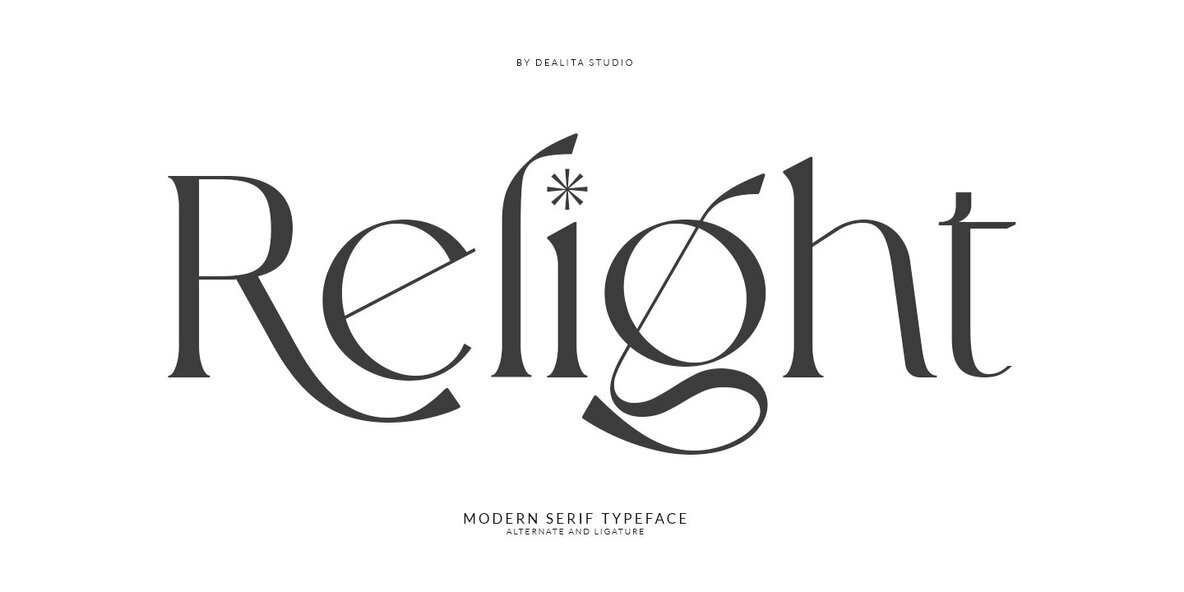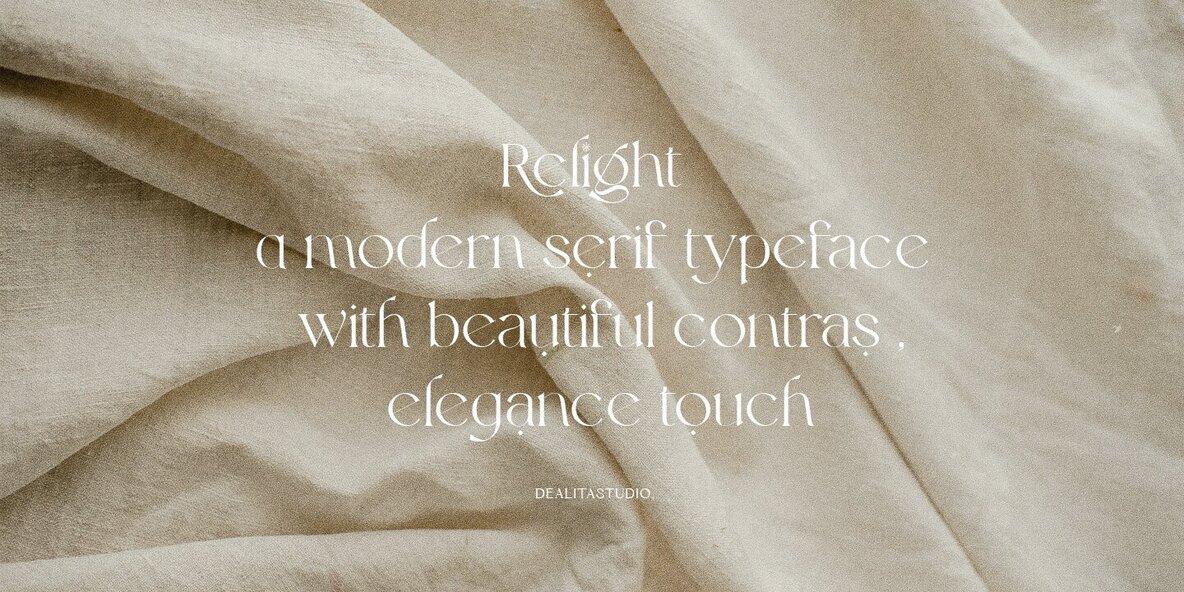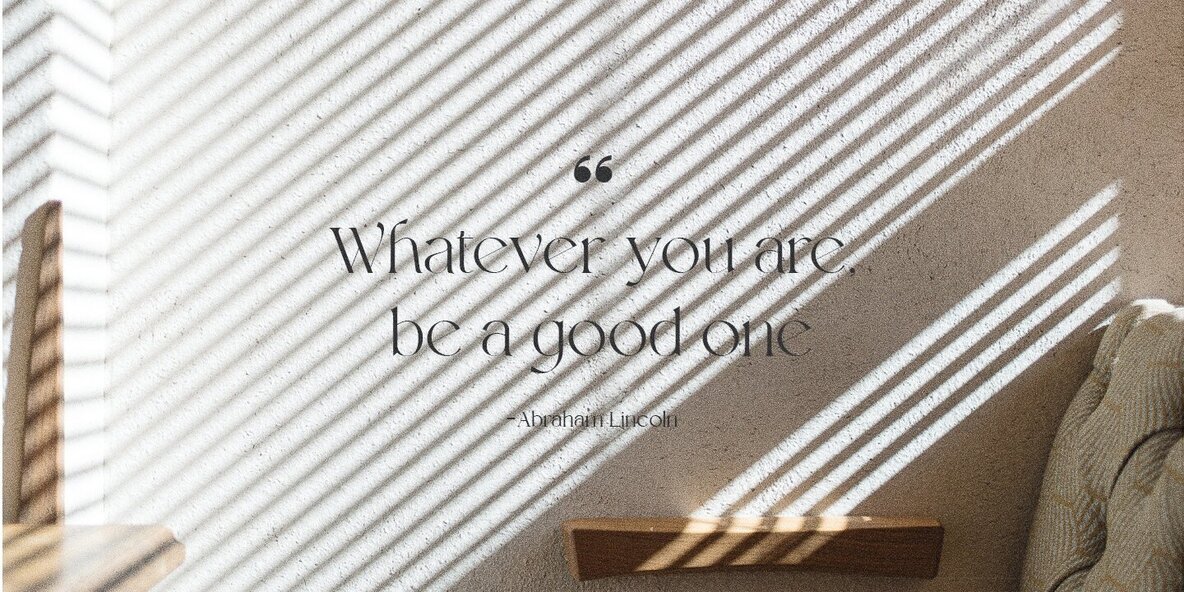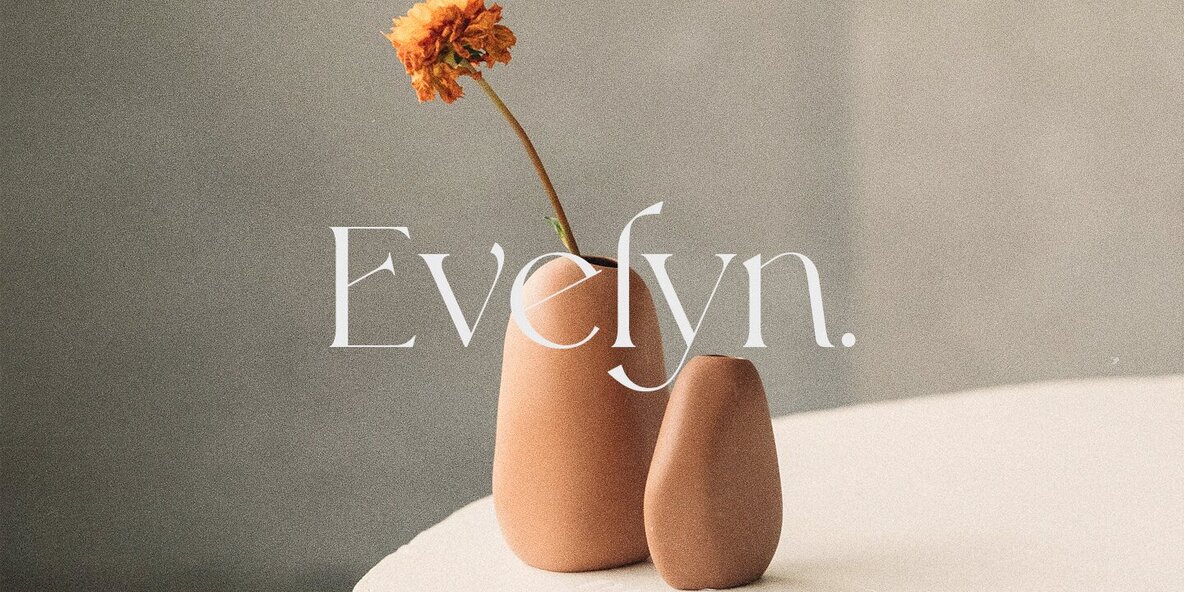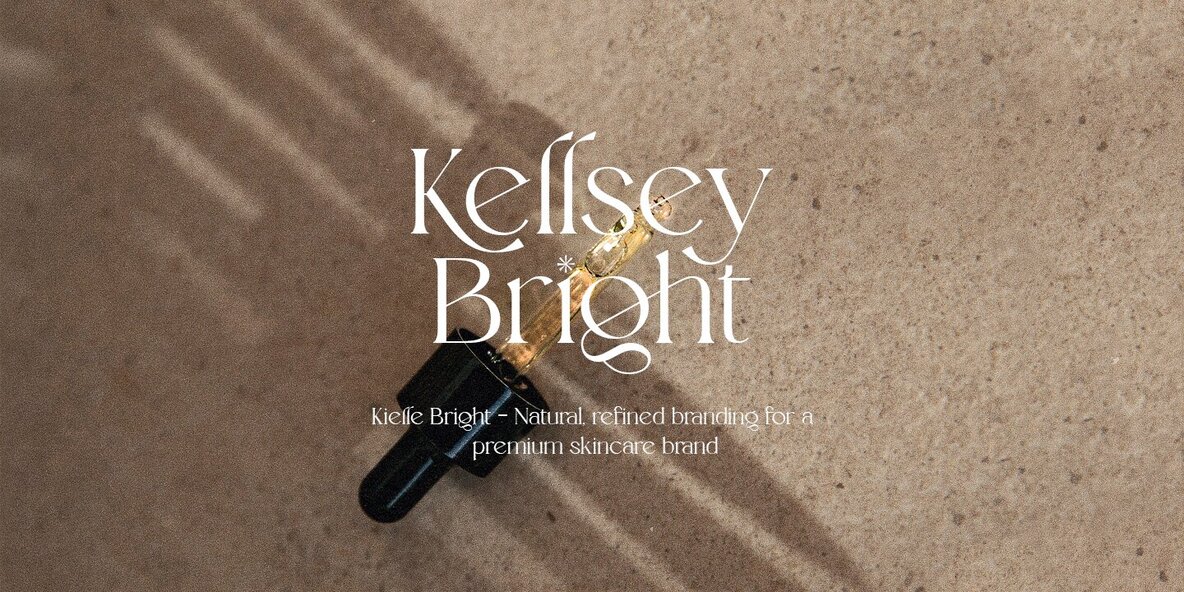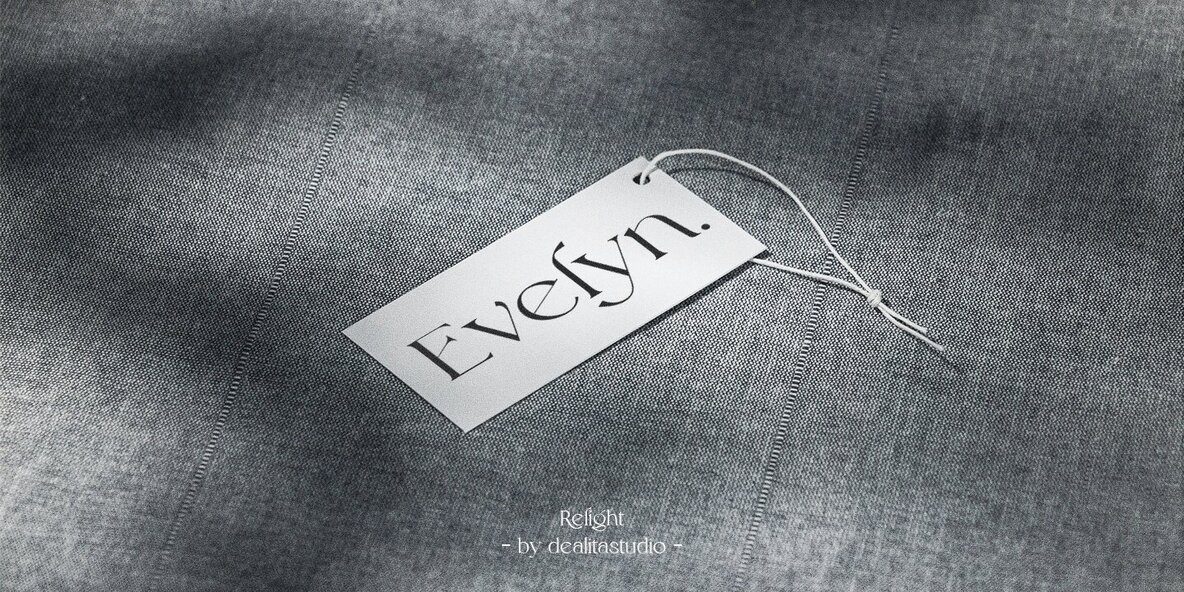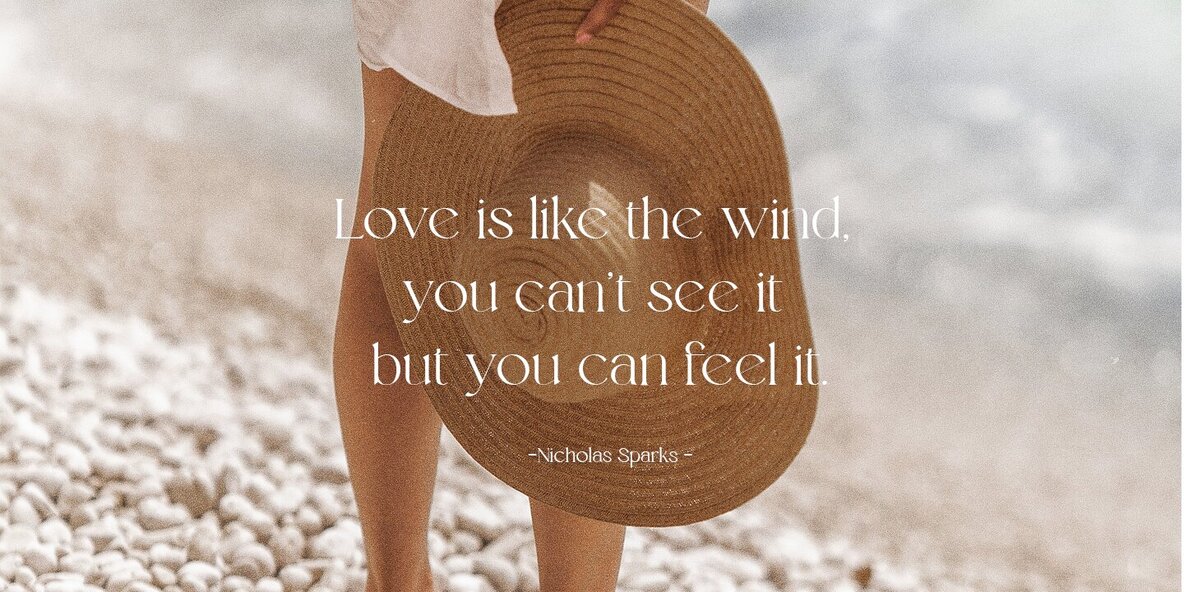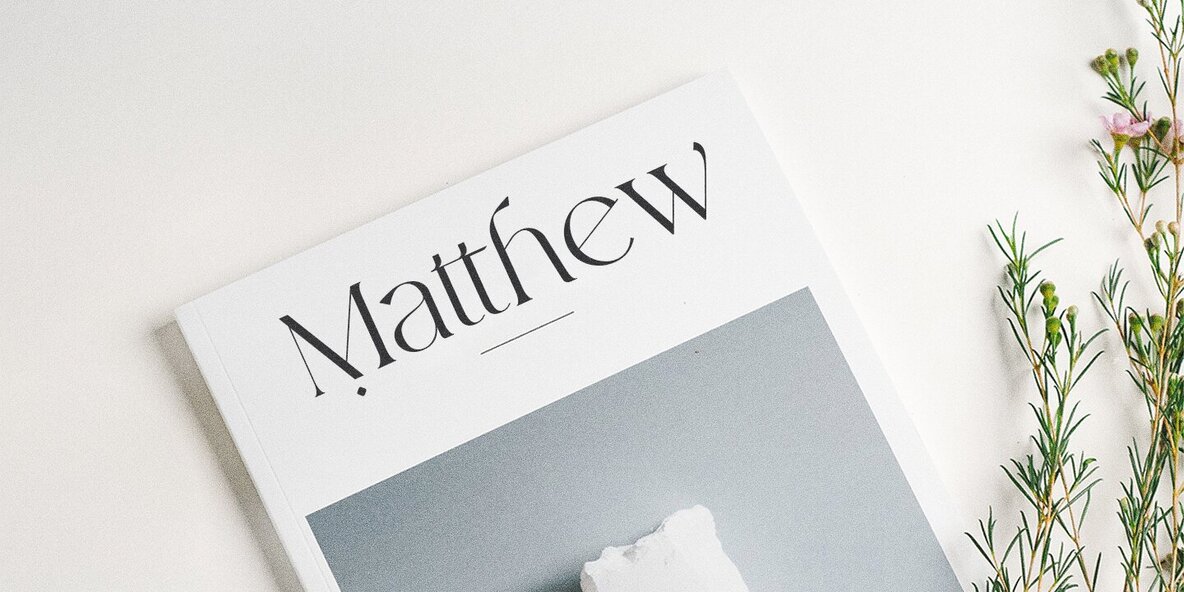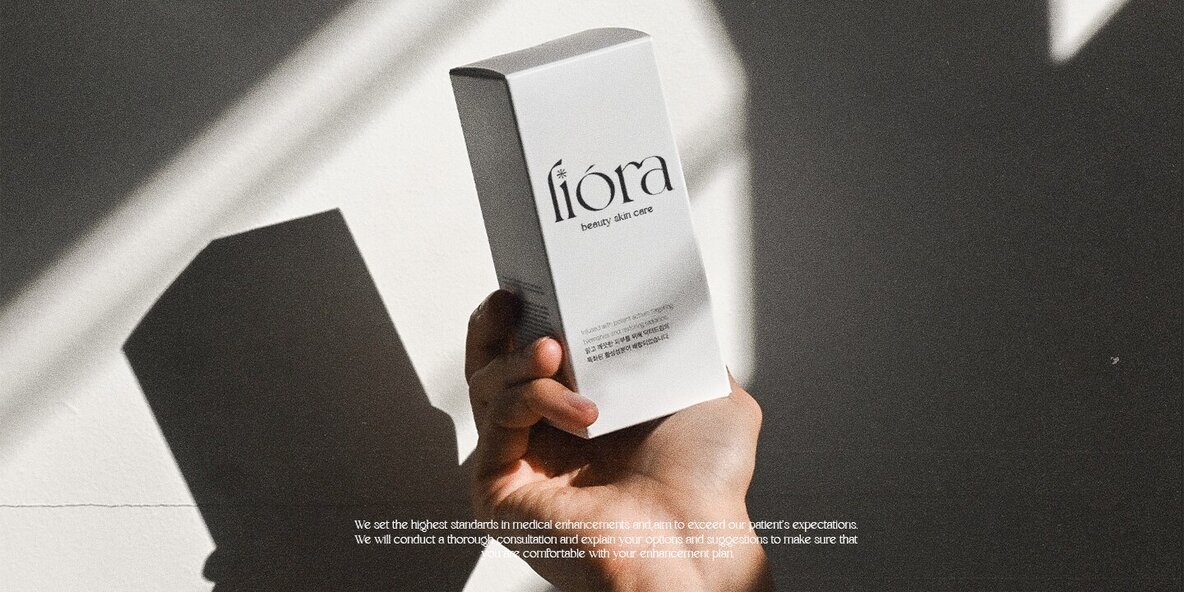
Relight Font
Relight Regular
Embodying elegance and modernity, Relight is a stunning display serif font that brings a high-end touch to any fashion-themed project. Expertly crafted with striking contrast, this font exudes luxury and style, making your designs inherently sophisticated. Its unique letterforms and intricate details create an effortlessly polished aesthetic ideal for discerning creatives. Relight is perfect for a wide range of applications, from logos to magazine titles, editorial layouts, and high-fashion branding. Its harmonious blend of modern design and timeless elegance ensures that your designs remain both contemporary and classic. With Relight, creating visually striking and on-trend projects becomes seamless, making it an invaluable resource for designers seeking to leave a lasting impression.Relight: A Chic Serif Font for Sophisticated Designs